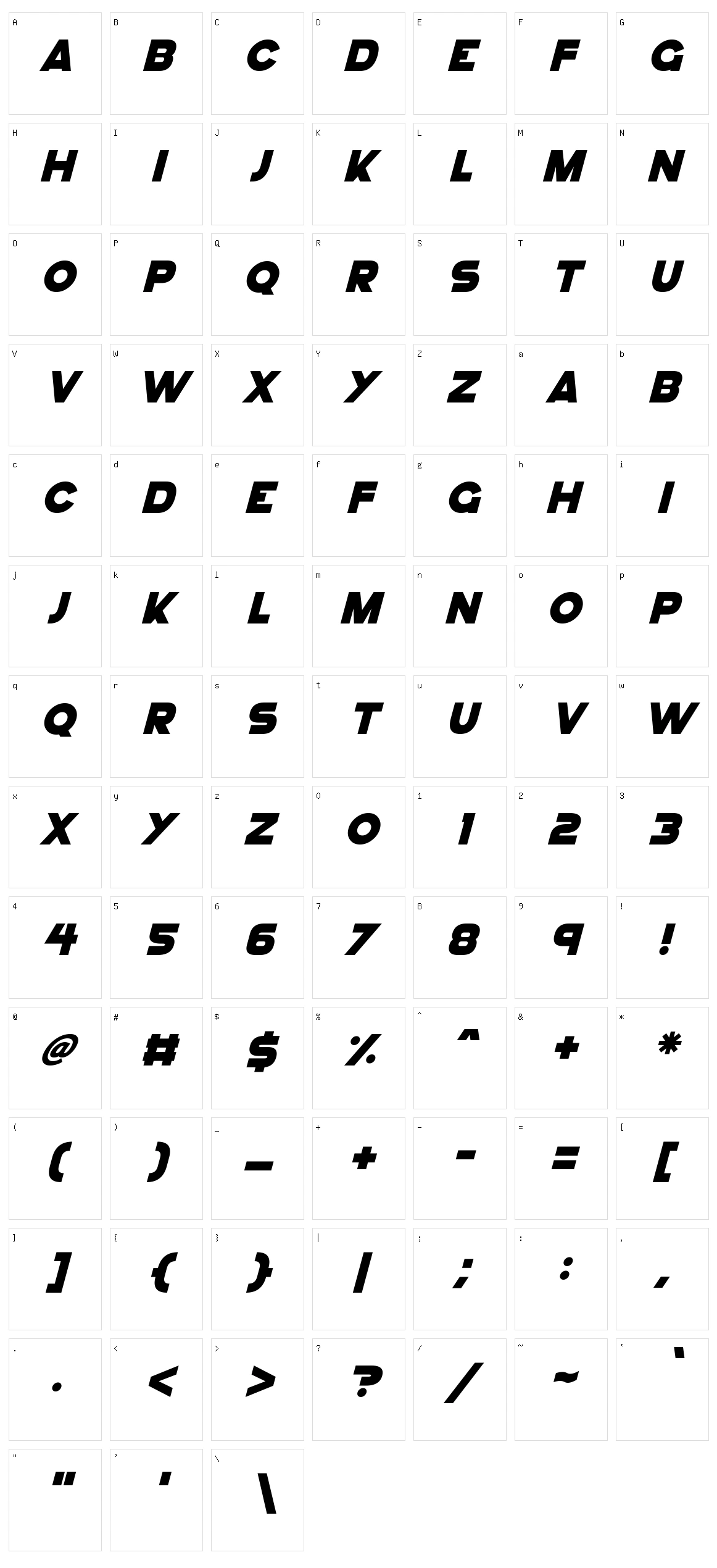
The free font GoGo Hack is carefully designed by Hawtpixel, showcasing a thoughtful balance of creativity and usability and falls under the Sans serif font style. When you download the ZIP file, it contains only 126.73 KB of font files, making it lightweight and quick to download. Please review the license details below to understand permitted usage and distribution rights. If license information is not available, we recommend using this font for personal projects only or contacting the author directly for commercial usage permissions.
*New version - modified E